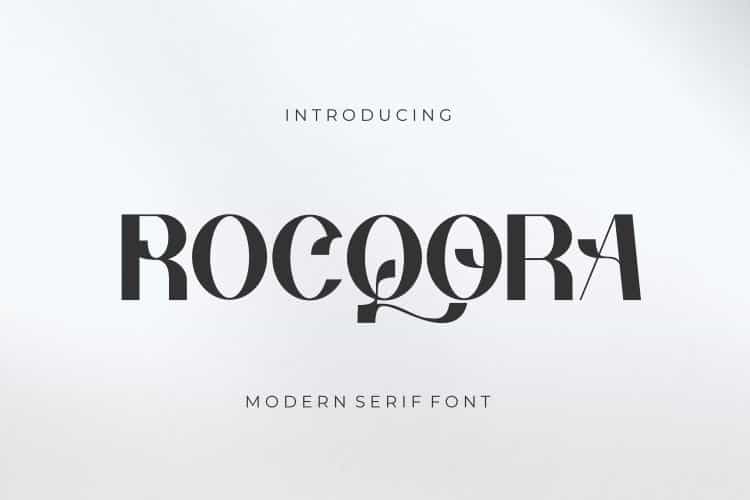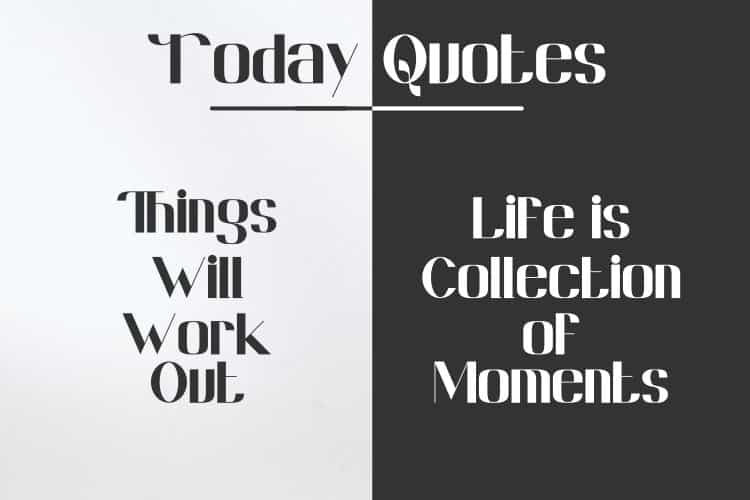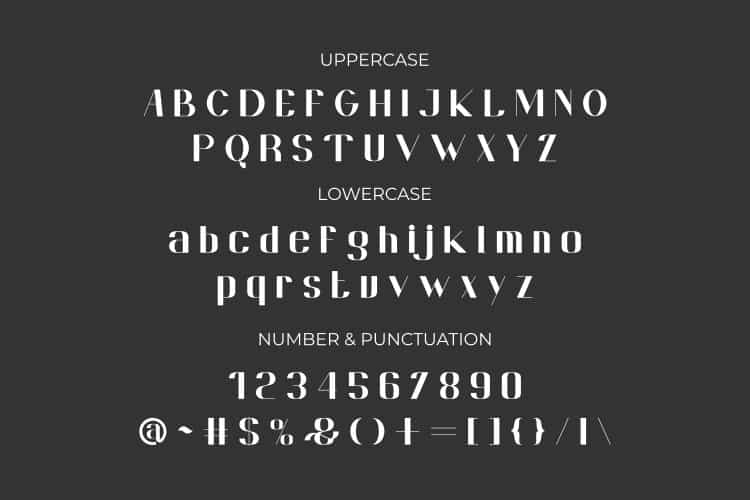
Rocqora is a modern serif font with an elegant and fun appearance, ideal for use in logo design, branding invitations, stationery designs, wedding designs and social media posts.